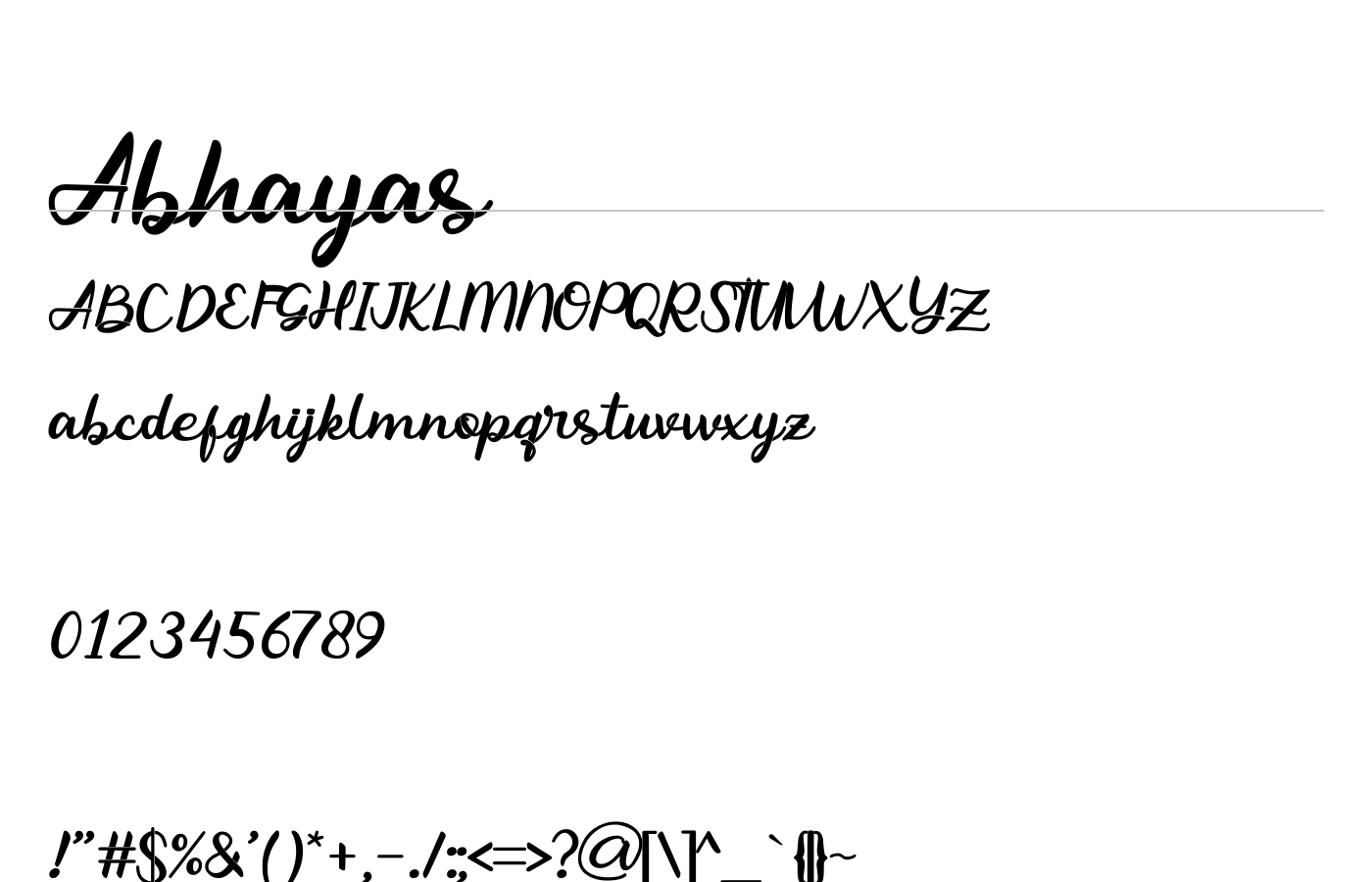
Abhayas is a lively script font featuring smooth, flowing strokes with a moderate weight and a slight slant that adds a personal, handwritten feel. Its blend of connected and open letterforms, along with unique character shapes, gives it a friendly yet elegant personality, making it perfect for creative designs, branding, invitations, and casual editorial use where warmth and approachability are desired.
Abhayas Font